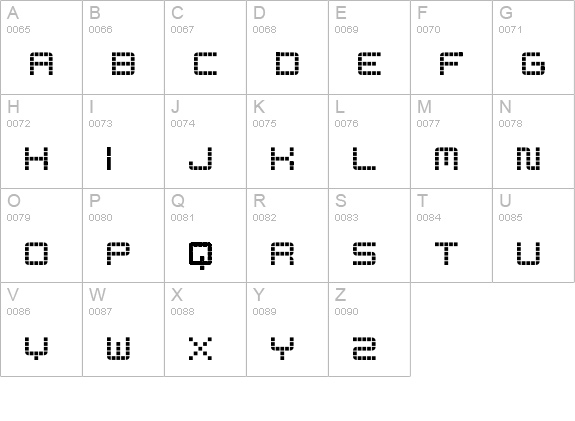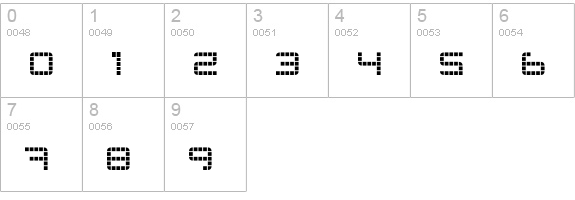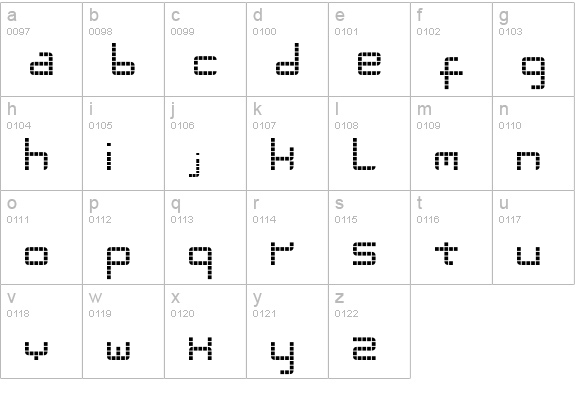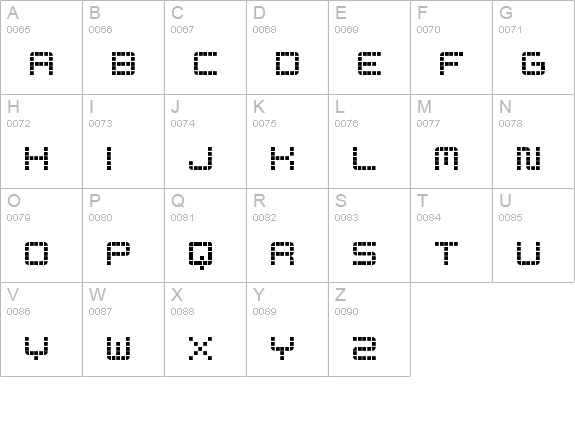
3t Font Details
Introducing the elegant and versatile 3t font, a striking typeface that effortlessly combines modern design with timeless appeal. This font features clean lines and a sleek aesthetic, making it perfect for a wide range of design projects. Whether you're creating a logo, website, or print materials, 3t font will add a touch of sophistication to your work. Best of all, 3t font is available for free download at FontsMarket.com. This means you can easily access this stunning typeface and incorporate it into your projects without any cost. Don't miss out on the opportunity to elevate your designs with the beautiful 3t font – download it today and see the difference it can make!